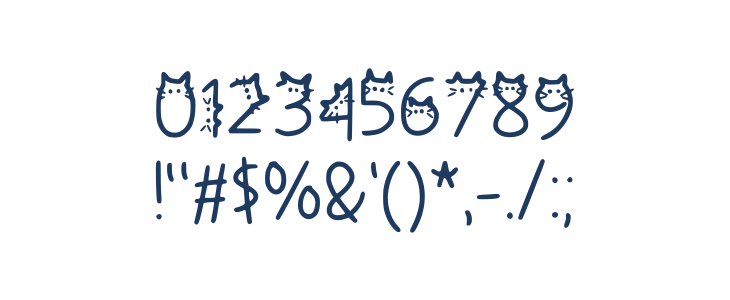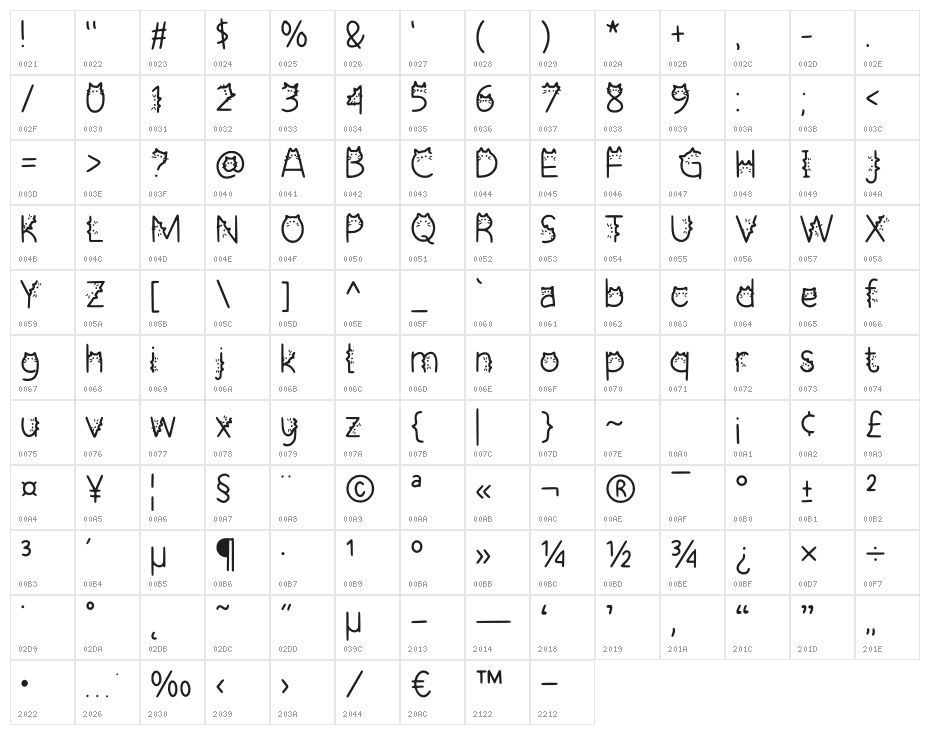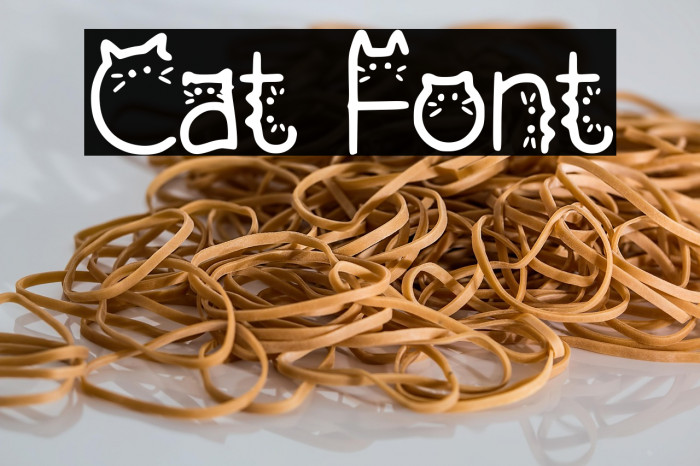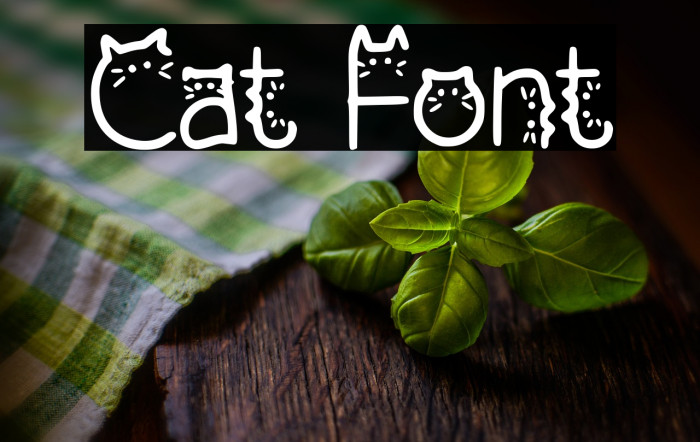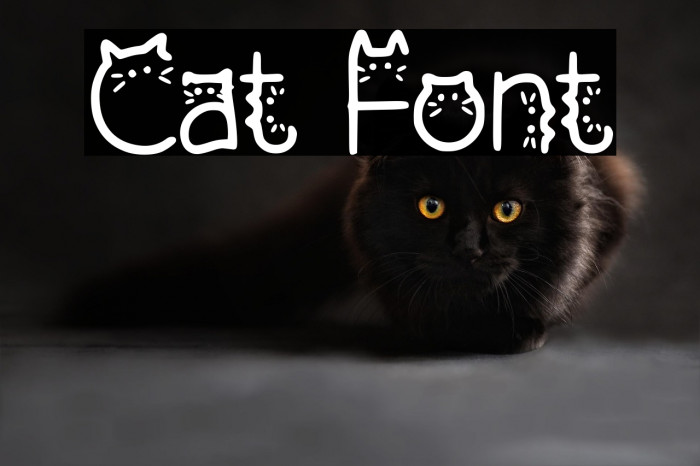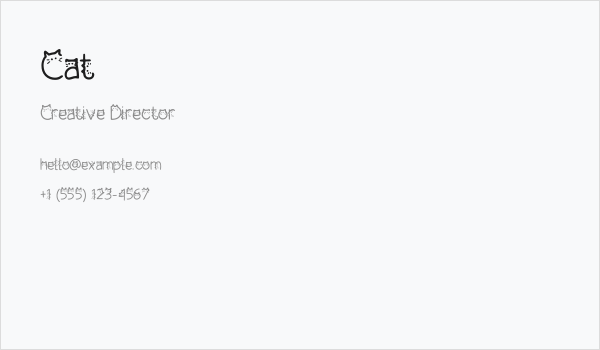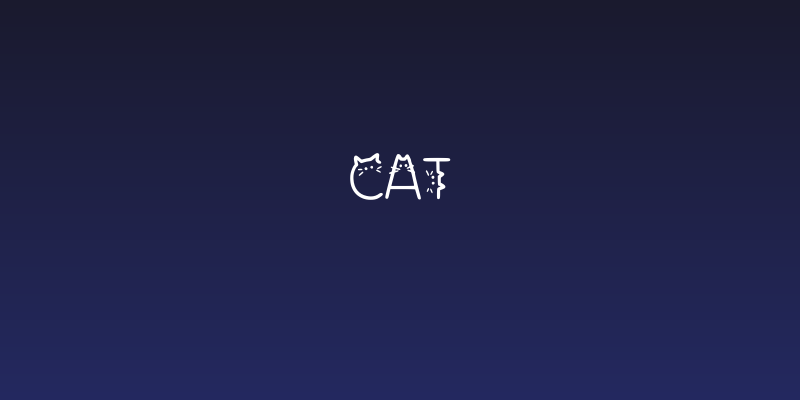
Cat Font
This playful and whimsical font features a unique design where each character is integrated with a cat face motif. The letters are bold and rounded, with a friendly and approachable appearance. The cat faces add a touch of charm and humor, making the font ideal for projects that require a lighthearted and fun aesthetic. The characters are evenly spaced, ensuring readability while maintaining their decorative appeal. This font is perfect for children's books, pet-related branding, or any creative project that aims to evoke joy and playfulness.
| Overall Style | Whimsical |
| Proposed Projects | Ideal for children's books, pet branding, playful invitations, and whimsical graphic designs. |